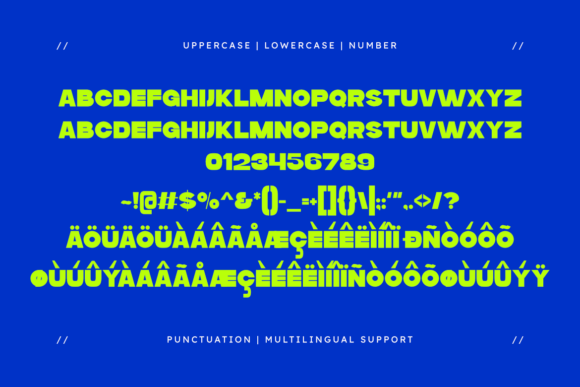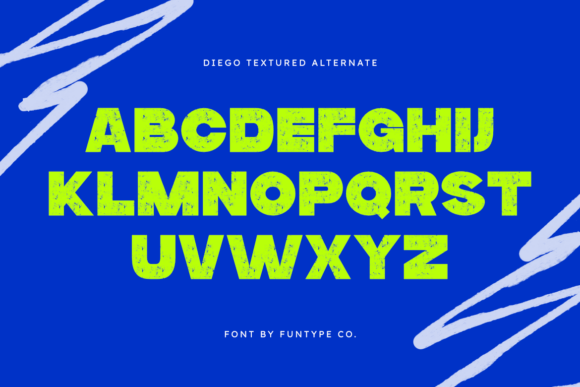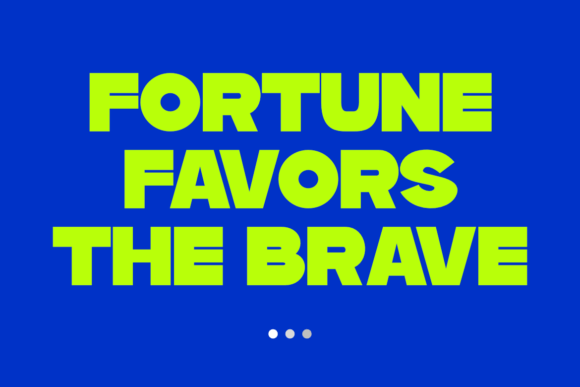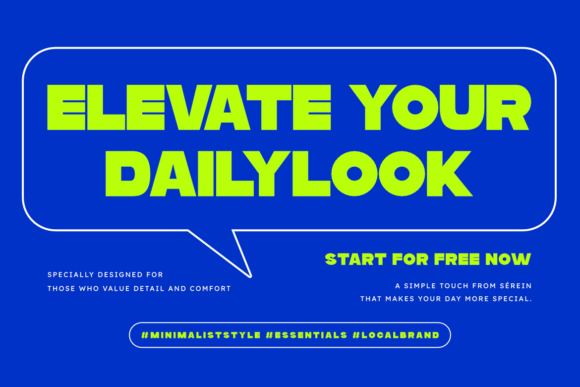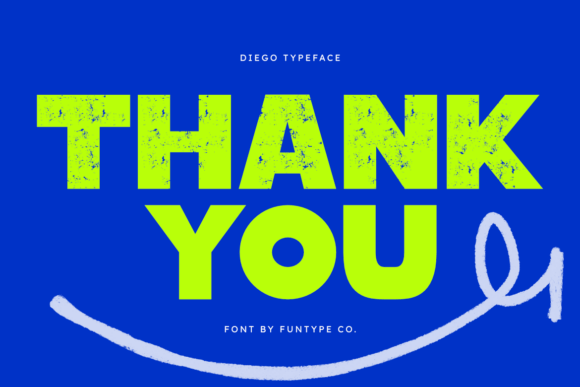
Introducing Diego Font: The Ultimate Modern Extrabold Heavy Sans Font
In the world of typography, a font can make or break the visual identity of a brand, product, or creative project. For designers and crafters looking to make a bold statement, Diego Font is an exceptional choice. This massive, high-impact modern extrabold heavy sans font is designed to command attention and dominate the visual landscape.
The Power of Diego Font
Diego Font boasts a solid, thick block structure and ultra-bold geometric lines, making it perfect for powerful headlines, professional branding, athletic apparel, bold logo design, and large-scale posters. Its clean yet forceful aesthetic is ideal for any modern creative project requiring a strong, unshakeable look. Whether you’re a designer, craftsperson, or marketer, Diego Font provides the perfect tool to make your message heard.
Key Features of Diego Font
- Massive Impact: Diego Font is designed to make a big impact, with a bold and commanding presence that grabs attention.
- High-Quality Design: With its ultra-bold geometric lines and solid block structure, Diego Font offers a clean and professional aesthetic.
- Versatility: Diego Font is perfect for a wide range of applications, from powerful headlines and logos to large-scale posters and athletic apparel.
- Modern and Fresh: Diego Font’s modern design ensures it stays fresh and relevant, even in the most fast-paced and competitive environments.
Use Cases for Diego Font
Diego Font’s versatility and impact make it suitable for various applications, including:
- Powerful Headlines: Use Diego Font to create bold, attention-grabbing headlines that cut through the noise.
- Professional Branding: Establish a strong brand identity with Diego Font, perfect for logos, business cards, and marketing materials.
- Athletic Apparel: Create bold, high-impact designs for athletic apparel, such as sports jerseys and equipment.
- Bold Logo Design: Craft a dominant visual presence with Diego Font, ideal for logos that need to make a statement.
- Large-Scale Posters: Use Diego Font to create eye-catching posters that demand attention.
Why Choose Diego Font?
In a crowded marketplace, it’s essential to stand out from the competition. Diego Font provides the perfect solution, offering a unique combination of style, versatility, and impact. Here are just a few reasons why designers and crafters choose Diego Font:
- Unshakeable Presence: Diego Font’s bold design ensures your message is heard, even in the most competitive environments.
- Flexibility: With its wide range of applications, Diego Font is an excellent addition to any designer’s or craftsperson’s toolkit.
- Modern Aesthetic: Diego Font’s modern design ensures your project looks fresh and contemporary.
Diego Font is an exceptional choice for designers and crafters looking to make a bold statement. Its massive, high-impact modern extrabold heavy sans font design makes it perfect for powerful headlines, professional branding, athletic apparel, bold logo design, and large-scale posters. With its solid, thick block structure and ultra-bold geometric lines, Diego Font provides a clean yet forceful aesthetic that is perfect for any modern creative project requiring a strong, unshakeable look.
Whether you’re a seasoned designer or a craftsperson looking to elevate your brand, Diego Font is an excellent addition to your toolkit. Its versatility, impact, and modern aesthetic make it an ideal choice for anyone looking to make a lasting impression.